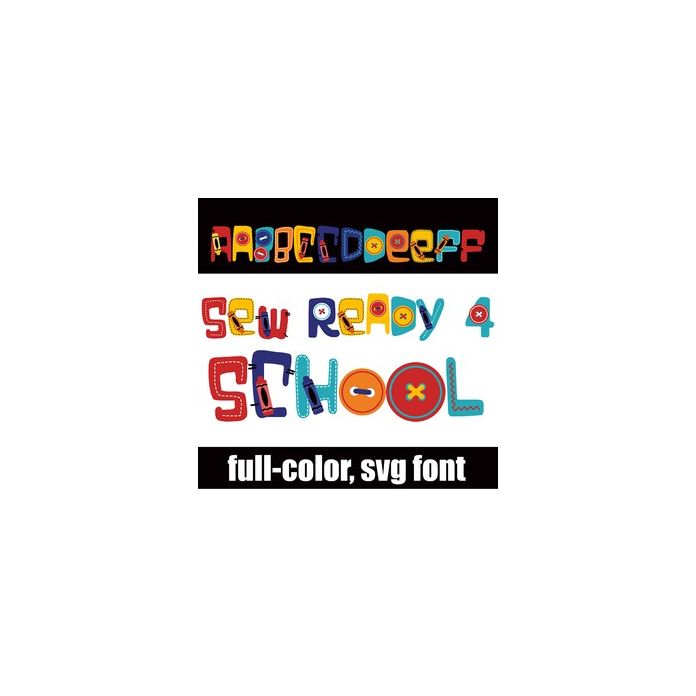
This full-color font features crayons and stitches and buttons. There is an alt case w/ additional colors you can access through your system or Silhouette's glyph map.